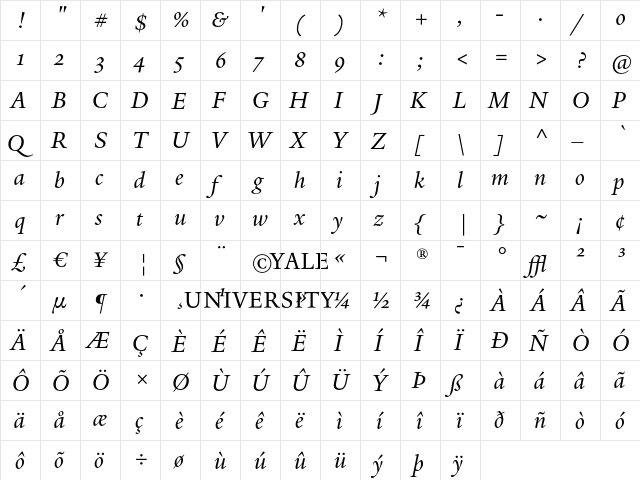
YaleDesign Italic
Design Context for YaleDesign Typeface
YaleDesign offers clean, dependable letterforms without strong stylistic allegiance, making it a practical choice for designers who need flexibility. Its italic angle brings a sense of urgency and motion to the letterforms.
Pro Tip: Try YaleDesign for annotation and caption copy alongside an upright companion — the contrast in angle creates a dynamic but ordered typographic system.